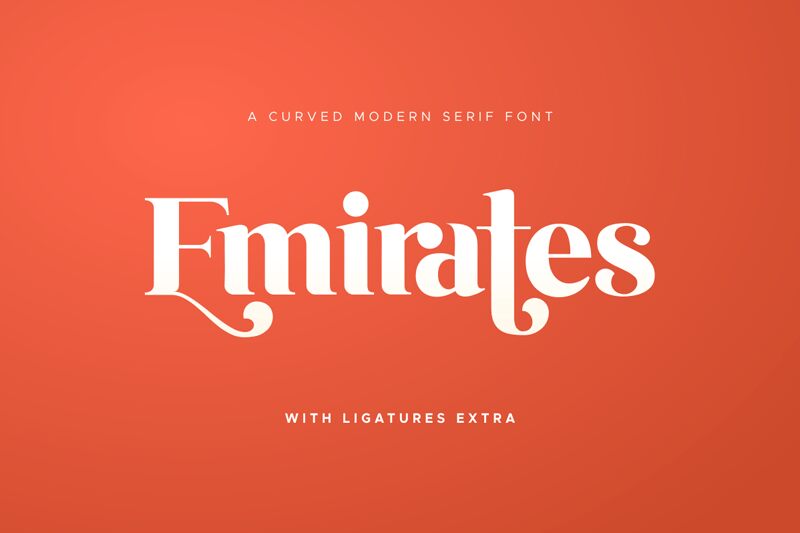
Emirates font by Sensatype Studio is an elegant and sophisticated serif font. Designed with classic refinement in mind, it brings a timeless appeal to any project. It balances modern elegance and traditional design with a focus on clean lines and clear readability which makes it usable for countless tasks.
Use Emirates for your magazines, books, newspapers, websites, blogs, or posters. The font also suits packaging boxes, business cards, logos and small branding ideas that require only text.